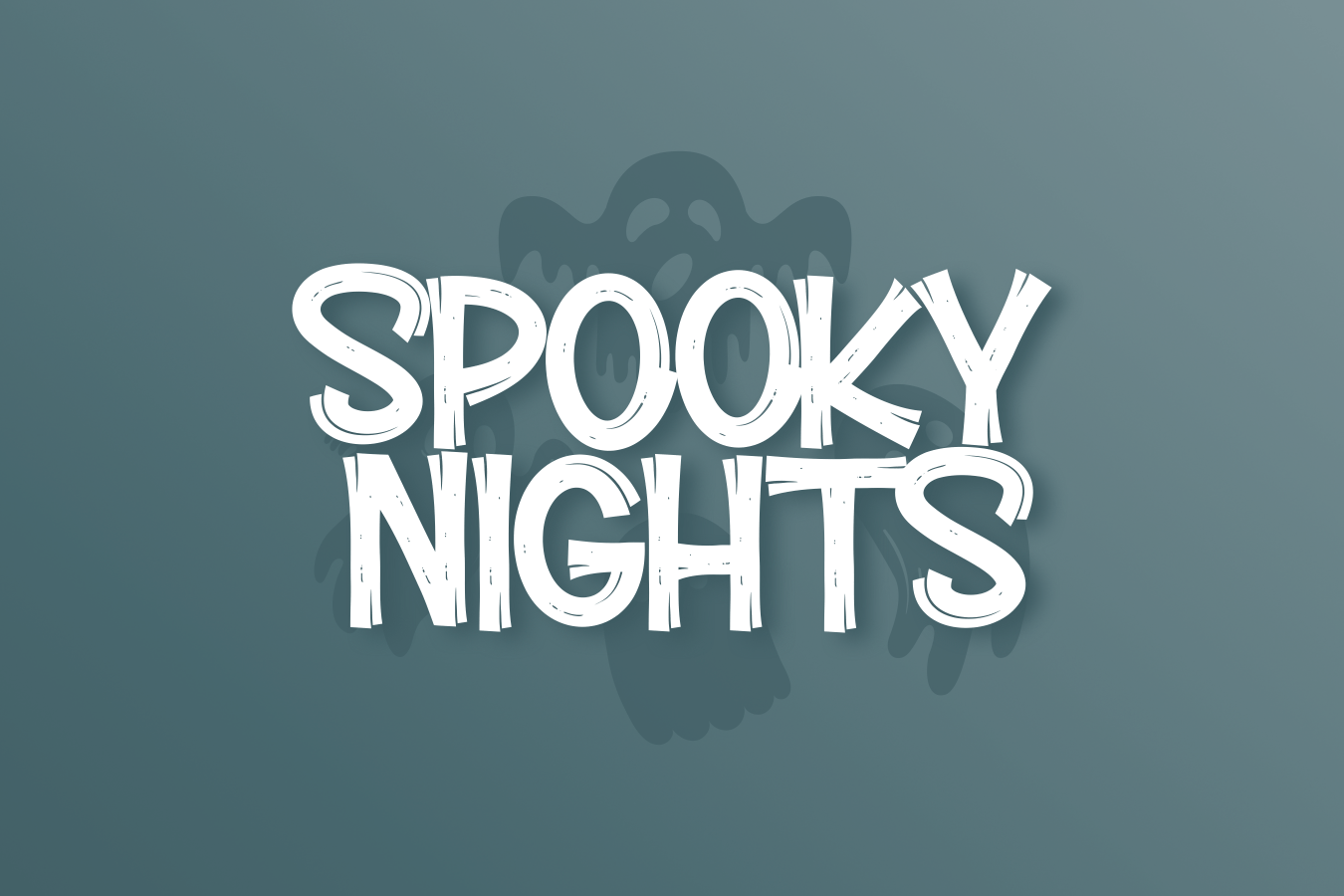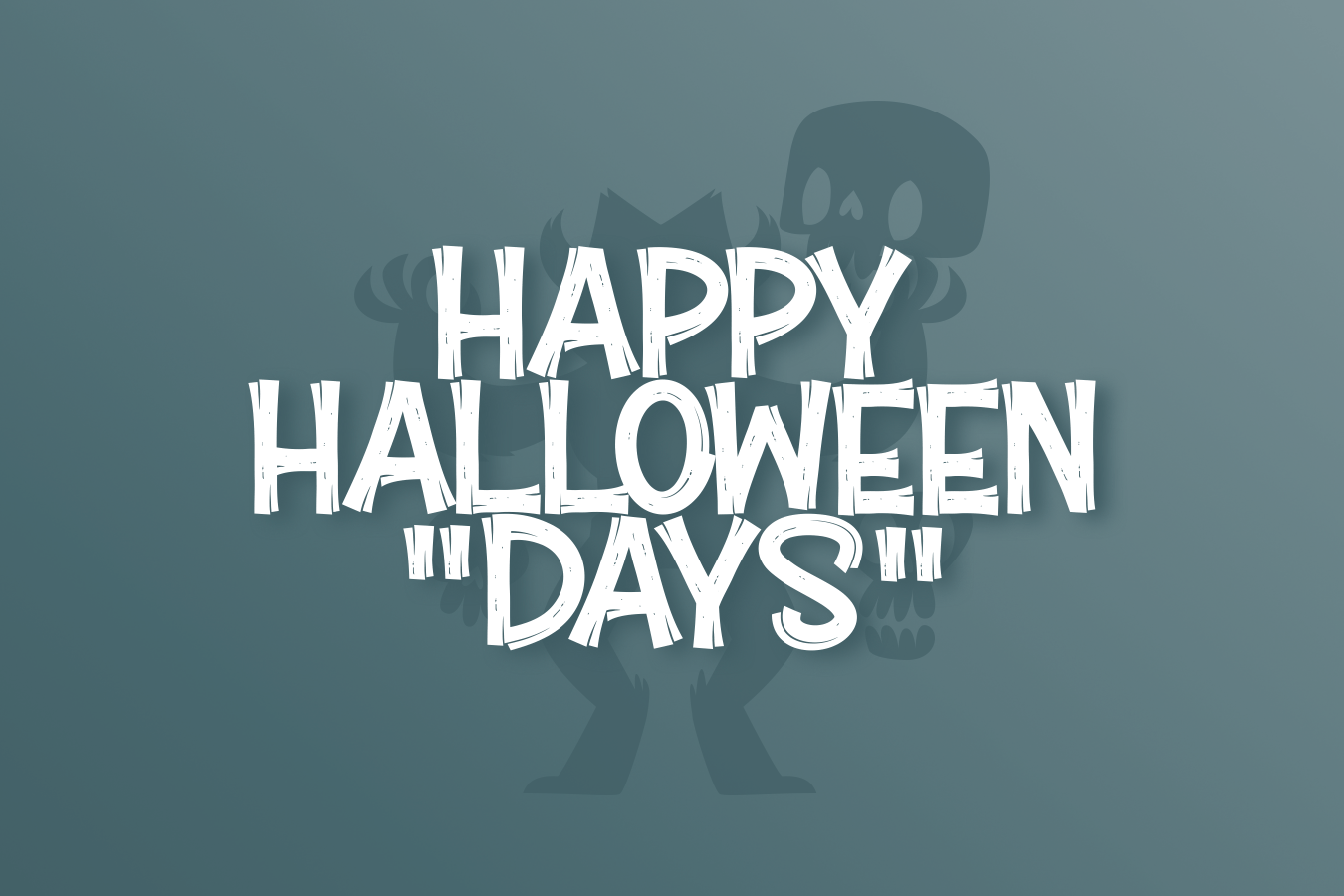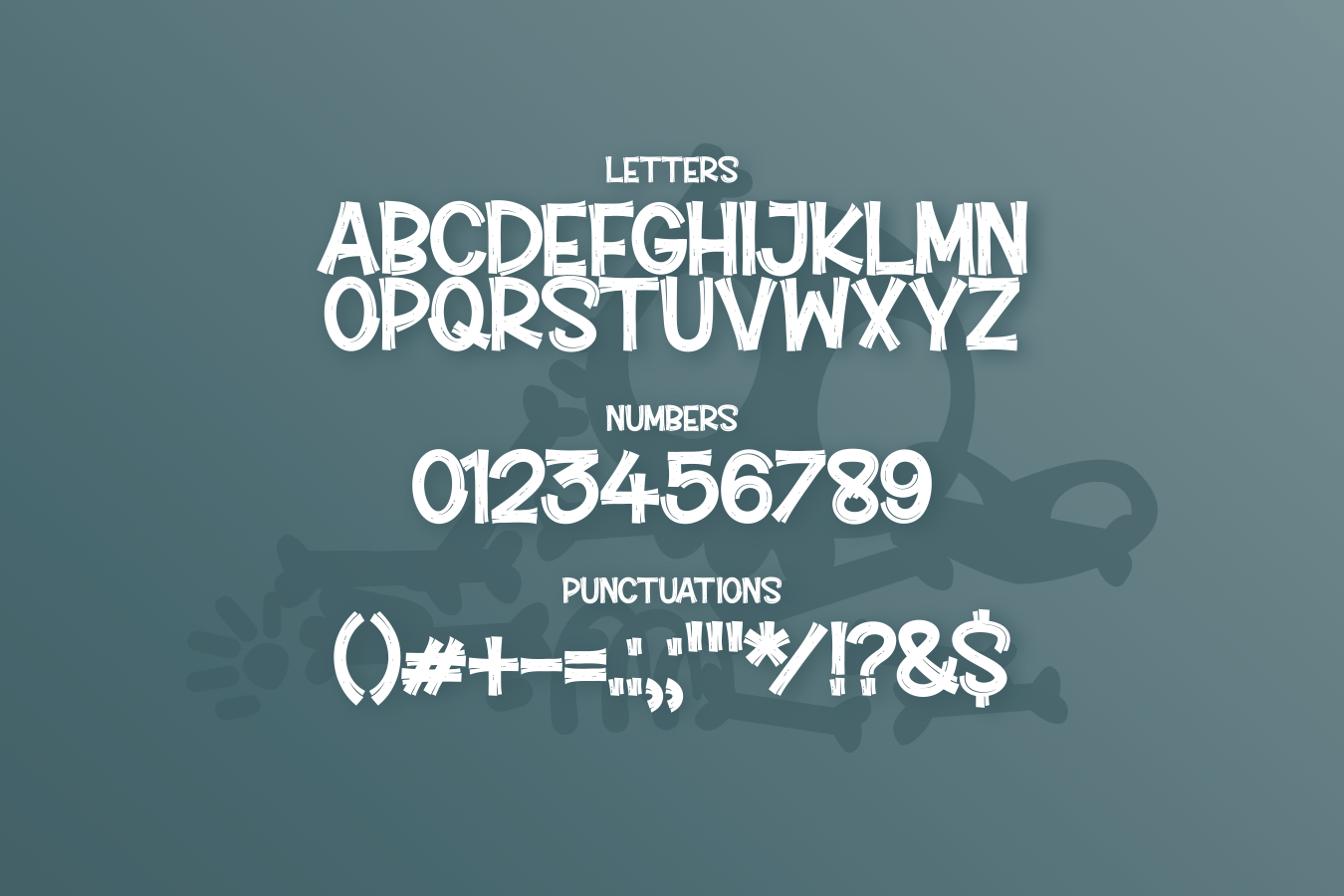
Henrore – Halloween Wood Font
Henrore is a Halloween style display font with a wood-like texture and brush strokes. Fonts like these are often used to create effects that suit a Halloween atmosphere, especially if you want to give your design a vintage or mysterious look. Henrore coming in all-caps, this font is perfect for creating signs, decorations, invitations, or any other Halloween project that aims to highlight the Halloween atmosphere with a unique touch.